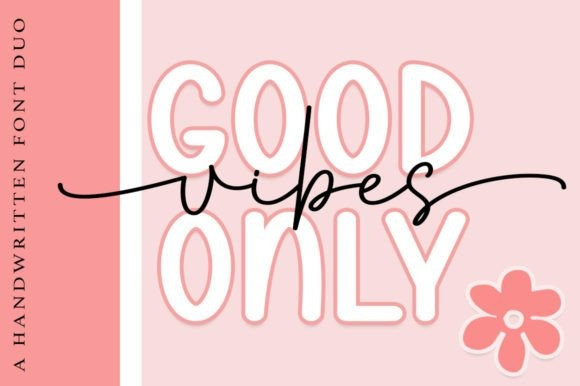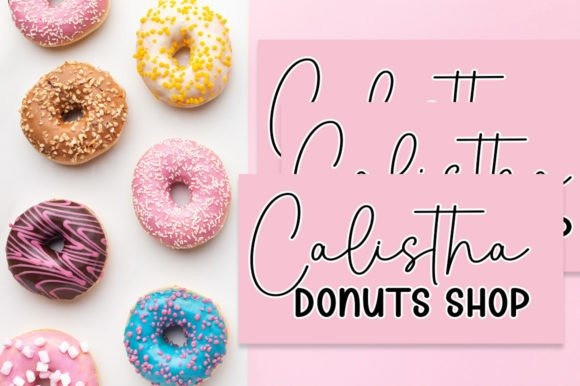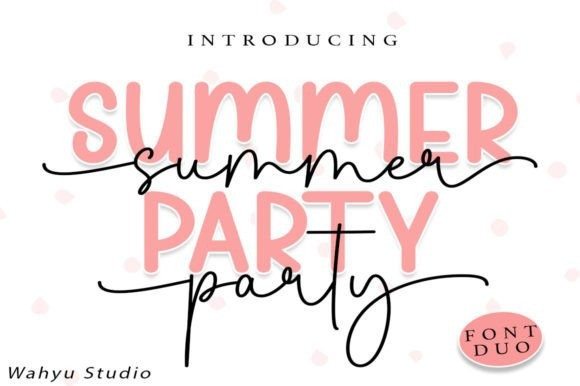
Summer Party Font Duo
Summer Party consists of two fonts designed to complement each other perfectly. Together or apart, these fonts are ideal for adding a stylish, cheerful touch to your crafts. Summer Party is a PUA code which means you can access all the glyphs and swashes easily!